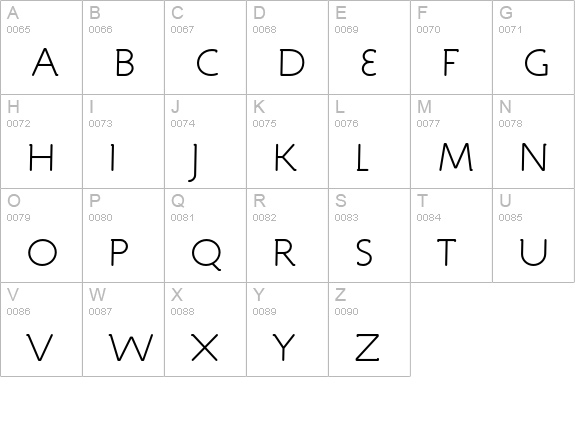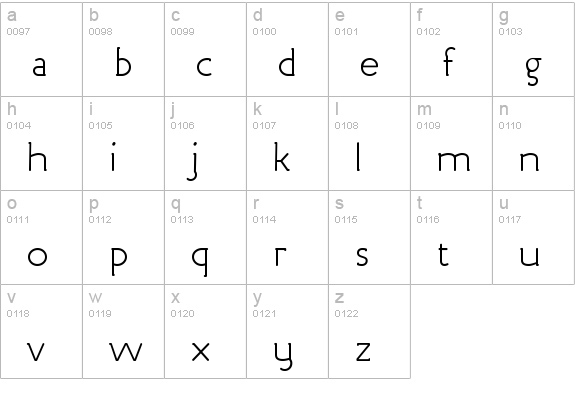
Engine-LightLF is a sleek and modern font that exudes sophistication and elegance. Its clean lines and balanced proportions make it perfect for a wide range of design projects, from branding to editorial design. The font's light weight adds a touch of delicacy and refinement, making it ideal for conveying a sense of understated sophistication. What sets Engine-LightLF apart is not just its aesthetic appeal, but also the fact that it is completely free to download. You can easily access this versatile and stylish font at FontsMarket.com without any cost, allowing you to enhance your designs with a touch of elegance without breaking the bank. Whether you're working on a logo, a website, or a print publication, Engine-LightLF is sure to elevate your design and make a lasting impression. Download this free font today and start creating stunning visuals that stand out from the crowd.